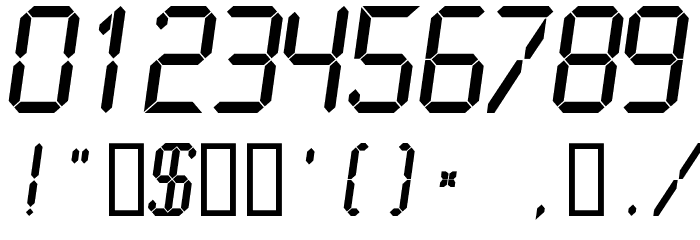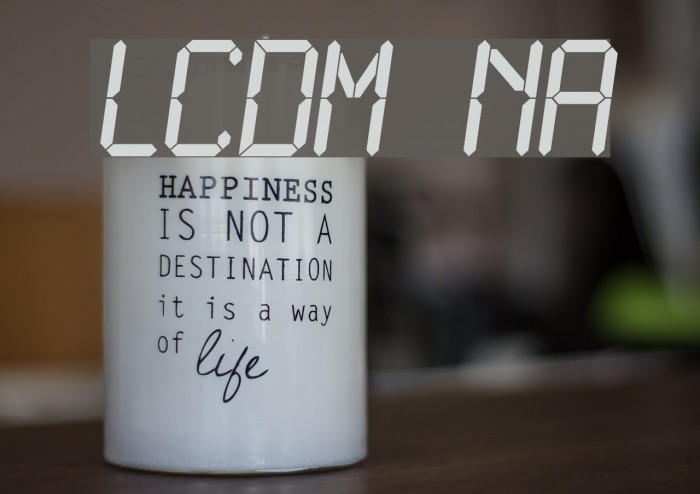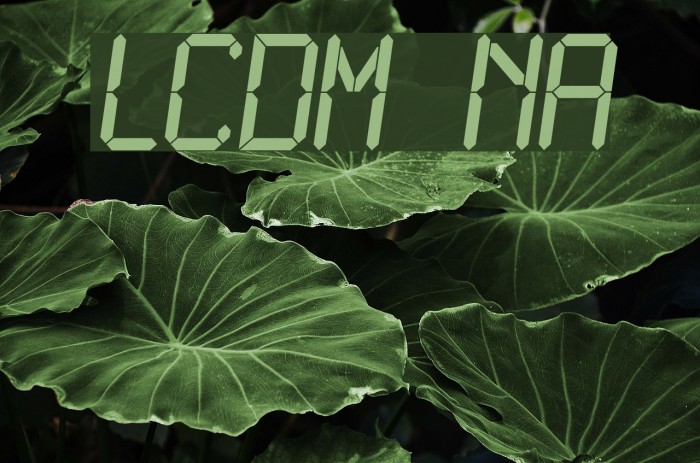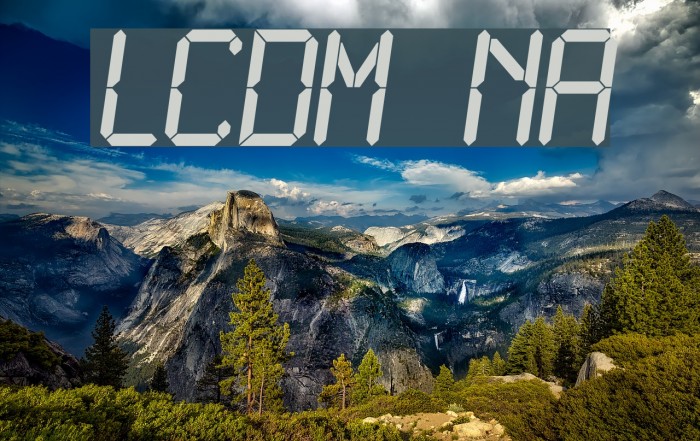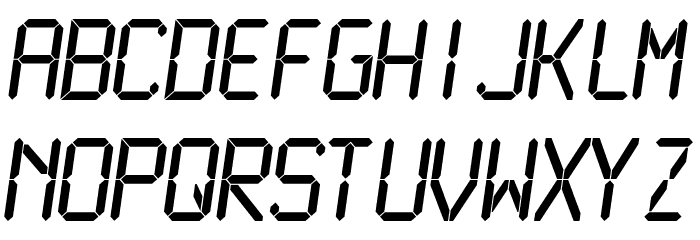
LCDMono Normal Font
LCDMono Normal Description
This font is a digital-inspired typeface that mimics the appearance of characters on an LCD screen. Each character is composed of segmented lines, creating a geometric and futuristic look. The design is consistent across uppercase and lowercase letters, as well as numbers and special characters, maintaining a uniform appearance. The font's style is reminiscent of digital clocks and calculators, making it ideal for projects that require a technological or modern aesthetic. Its simplicity and clarity ensure readability, even at smaller sizes.
| Use Case | Headlines, Digital displays, Tech interfaces |
| Proposed Projects | Ideal for digital interfaces, tech-themed designs, electronic device displays, and retro-futuristic projects. |